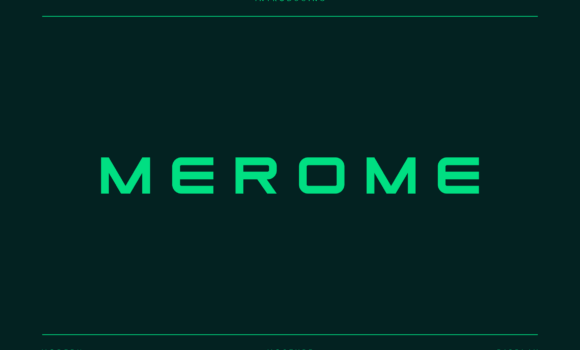
merome
Merome Font – Free Download Introduction to Merome Font Merome is a unique all-caps based font that will make your design look futuristic and modern, using a simple design to make it look clean and elegant. 📸 Preview Gallery 3